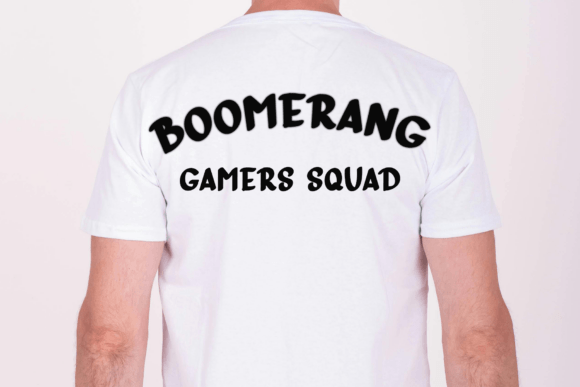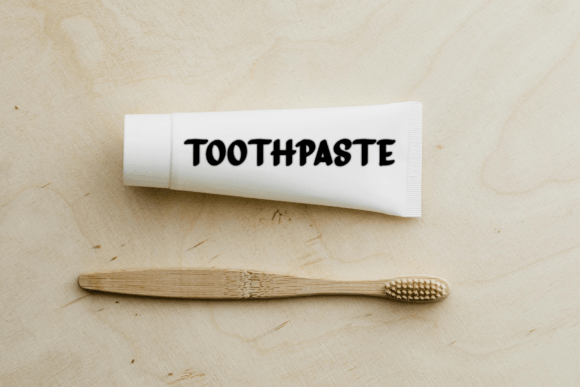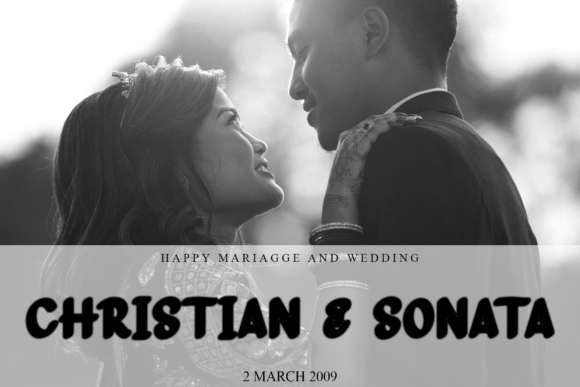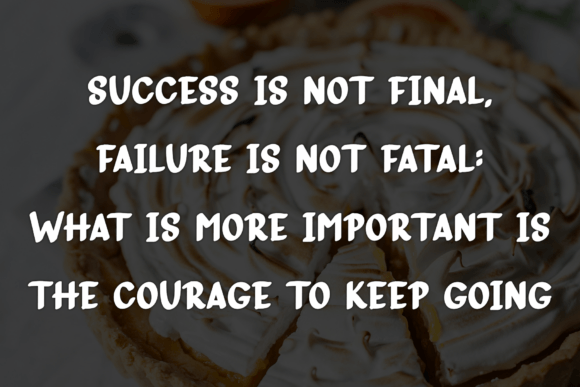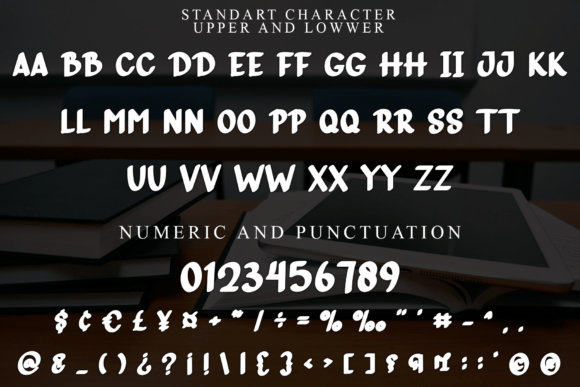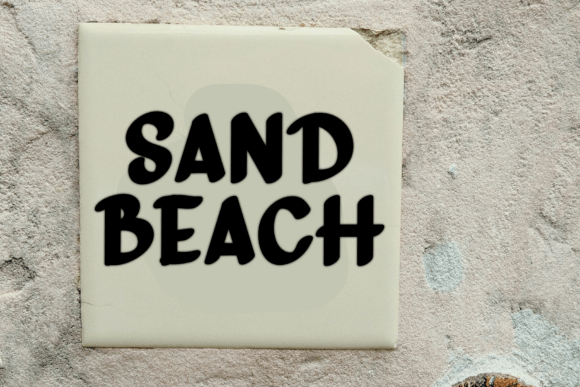
Introducing Choco Cream Font: The Perfect Blend of Warmth and Whimsy
In the world of typography, fonts play a crucial role in conveying the tone and personality of a design. For designers and crafters looking for a font that exudes warmth, friendliness, and a touch of playfulness, Choco Cream Font is an excellent choice. This casual display font has been designed to add a relaxed and approachable feel to any project, making it perfect for personal projects, invitations, social media graphics, and more.
The Characteristics of Choco Cream Font
Choco Cream Font boasts rounded, playful strokes that give it a charming, hand-drawn aesthetic. The font’s unique design elements make it stand out from more traditional fonts, adding a delightful, whimsical touch to any design. Its casual and display nature makes it ideal for use in a variety of creative projects, from DIY crafts to digital designs.
Why Choose Choco Cream Font?
There are several reasons why designers and crafters might choose Choco Cream Font for their projects:
- Warmth and Friendliness: The font’s design exudes a sense of warmth and friendliness, making it perfect for projects that aim to connect with the audience on a personal level.
- Playful and Whimsical: The rounded, playful strokes add a touch of whimsy to any design, making it ideal for projects that require a bit of personality.
- Versatility: Choco Cream Font can be used in a variety of projects, from personal invitations to social media graphics, and even DIY crafts.
- Easy to Read: Despite its playful nature, the font remains easy to read, making it a great choice for designs that require a balance of personality and legibility.
Using Choco Cream Font in Your Projects
Choco Cream Font can be used in a wide range of projects, including:
- Personal Invitations: Add a touch of warmth and personality to your invitations with Choco Cream Font.
- Social Media Graphics: Use the font to create engaging and playful social media graphics that connect with your audience.
- DIY Crafts: Choco Cream Font can be used in a variety of DIY crafts, from handmade cards to personalized gifts.
- Digital Designs: The font is also suitable for digital designs, including website headers, blog posts, and more.
Tips for Getting the Most Out of Choco Cream Font
To get the most out of Choco Cream Font, consider the following tips:
- Experiment with Colors: The font looks great in a variety of colors, so don’t be afraid to experiment and find the perfect hue for your project.
- Pair with Other Fonts: Choco Cream Font can be paired with other fonts to create a unique and interesting design.
- Use it Sparingly: While the font is playful and whimsical, it can be overwhelming if used excessively. Use it sparingly to add a touch of personality to your design.
Choco Cream Font is a versatile and charming font that can add a touch of warmth and whimsy to any design. Its playful, hand-drawn aesthetic makes it perfect for personal projects, invitations, social media graphics, and more. With its ease of use and flexibility, Choco Cream Font is an excellent choice for designers and crafters looking to add a bit of personality to their designs.